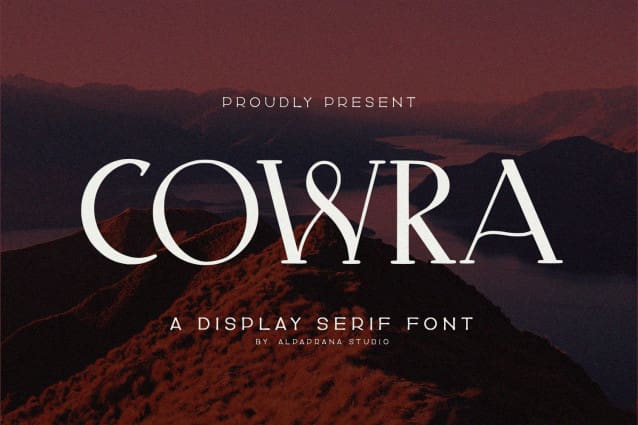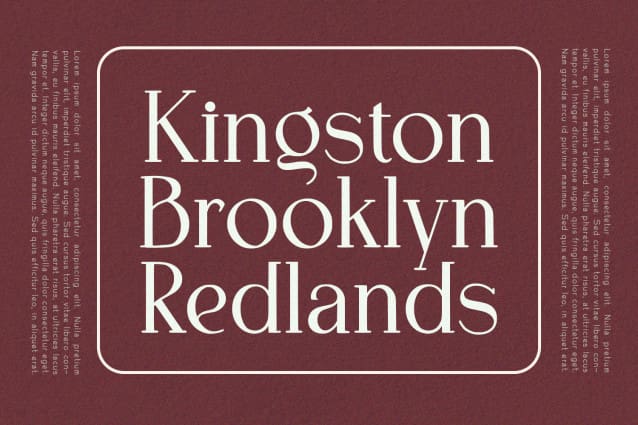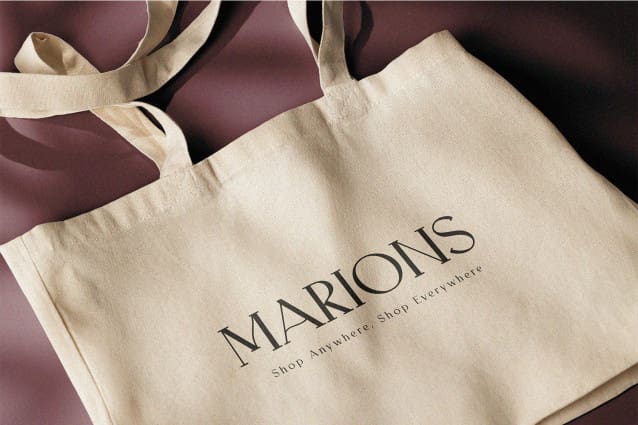
Cowra Font
Cowra Font is display serif font with elegant and modern feels. It will be perfectly used for Branding, Logo Design, Lettering, Logotype, Clothing, Poster, magazine, packaging, posters, shopping bags, t-shirts, book covers, photography, special events and other design project.